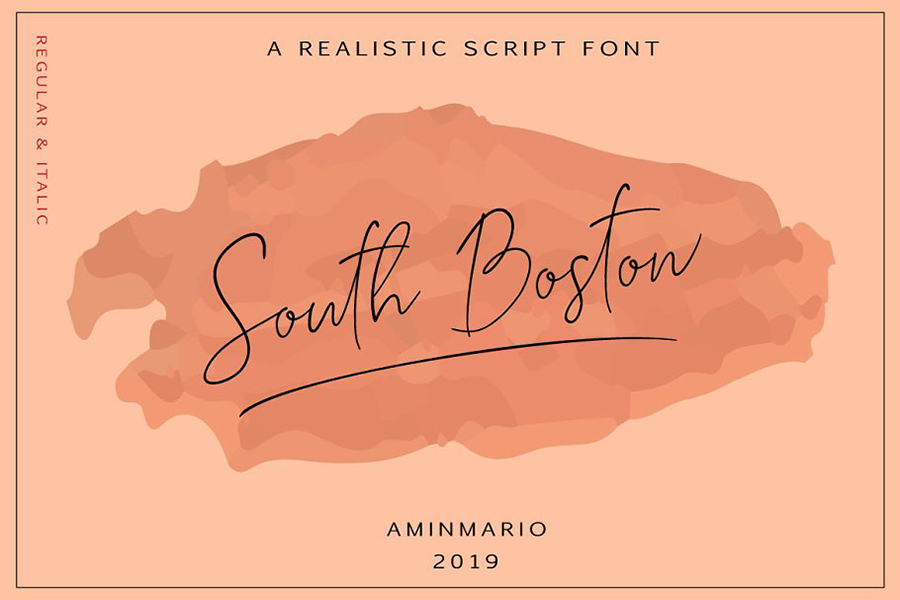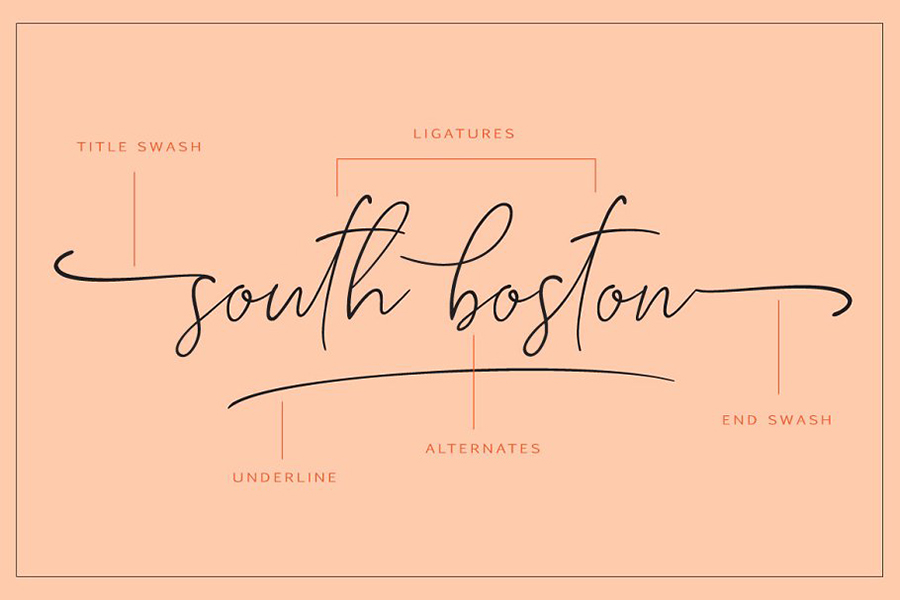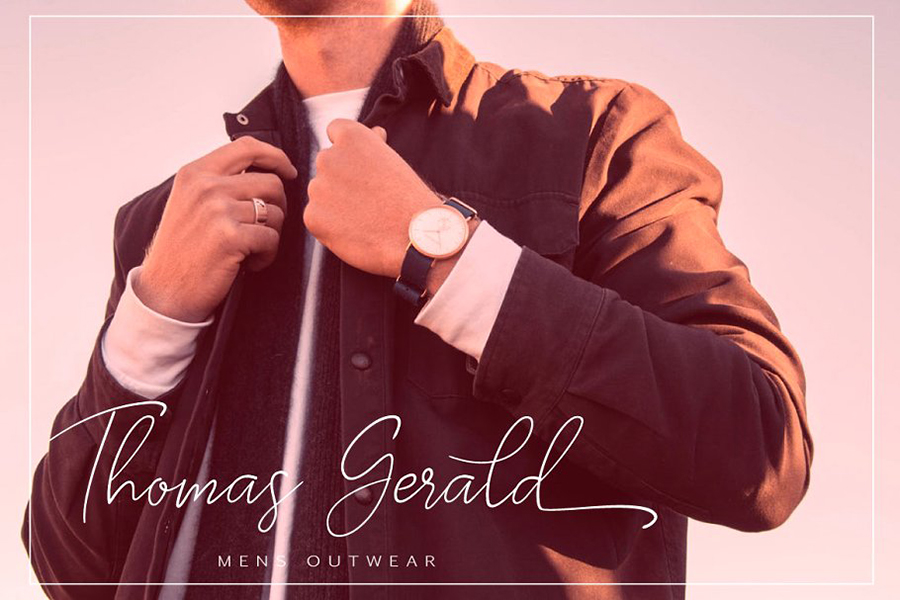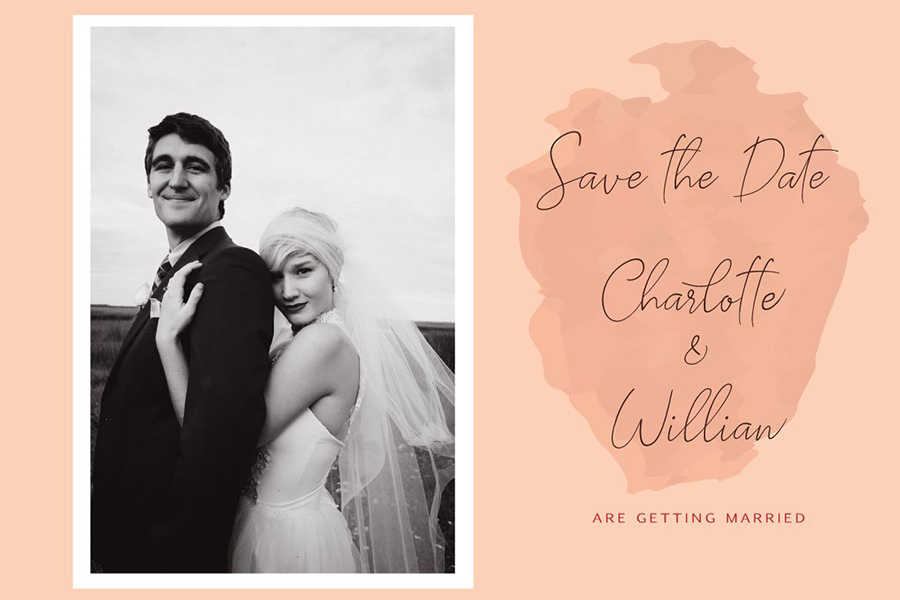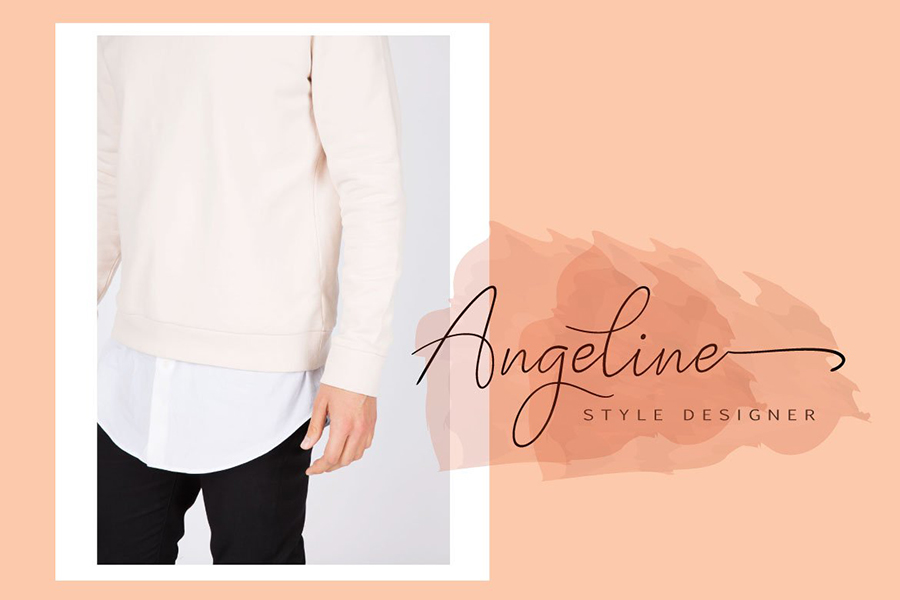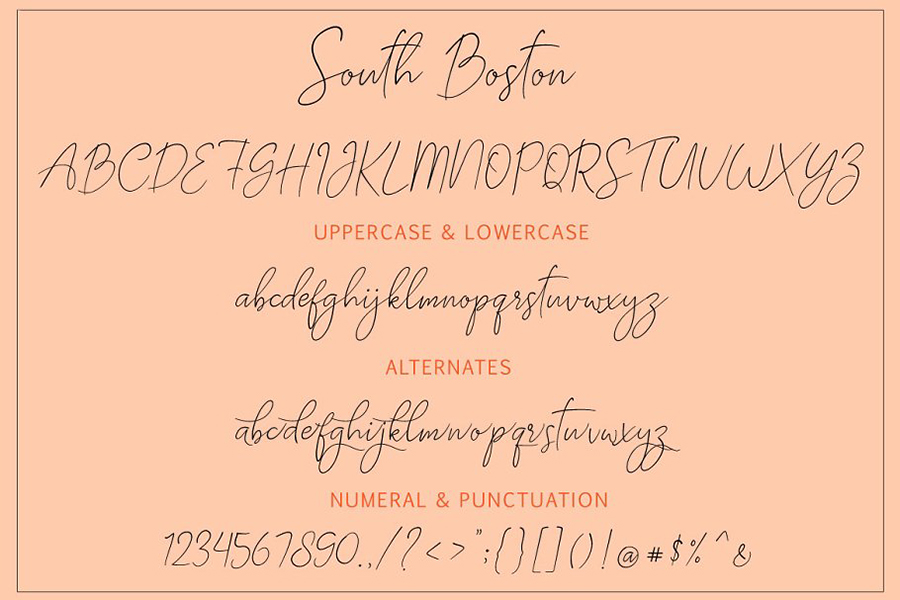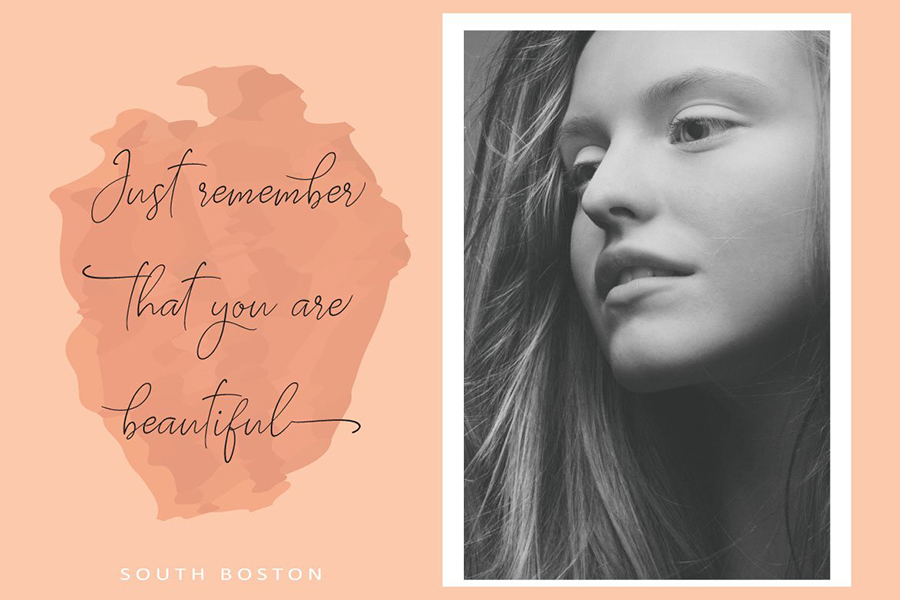
South Boston Script Free Demo
South Boston Script Free Demo is a realistic handwritten script with a dancing baseline. The font appear stylish, realistic script style hence it looks just like real handwriting. This one is a perfect choice for any awesome project that need handwriting touch. This is suitable for logos, watermarks on photography, signatures, branding, advertisement, quotes, invitations, stationery, wedding design,album covers, business cards, clothing, magazines, posters, and more!